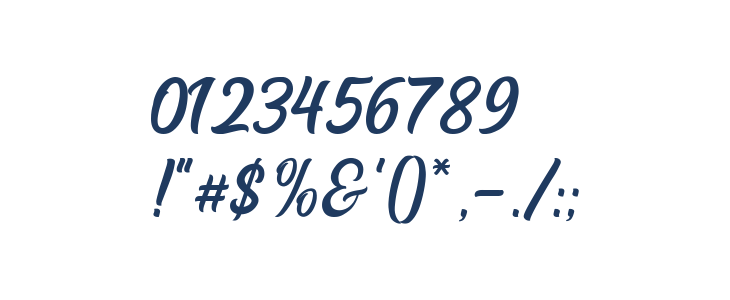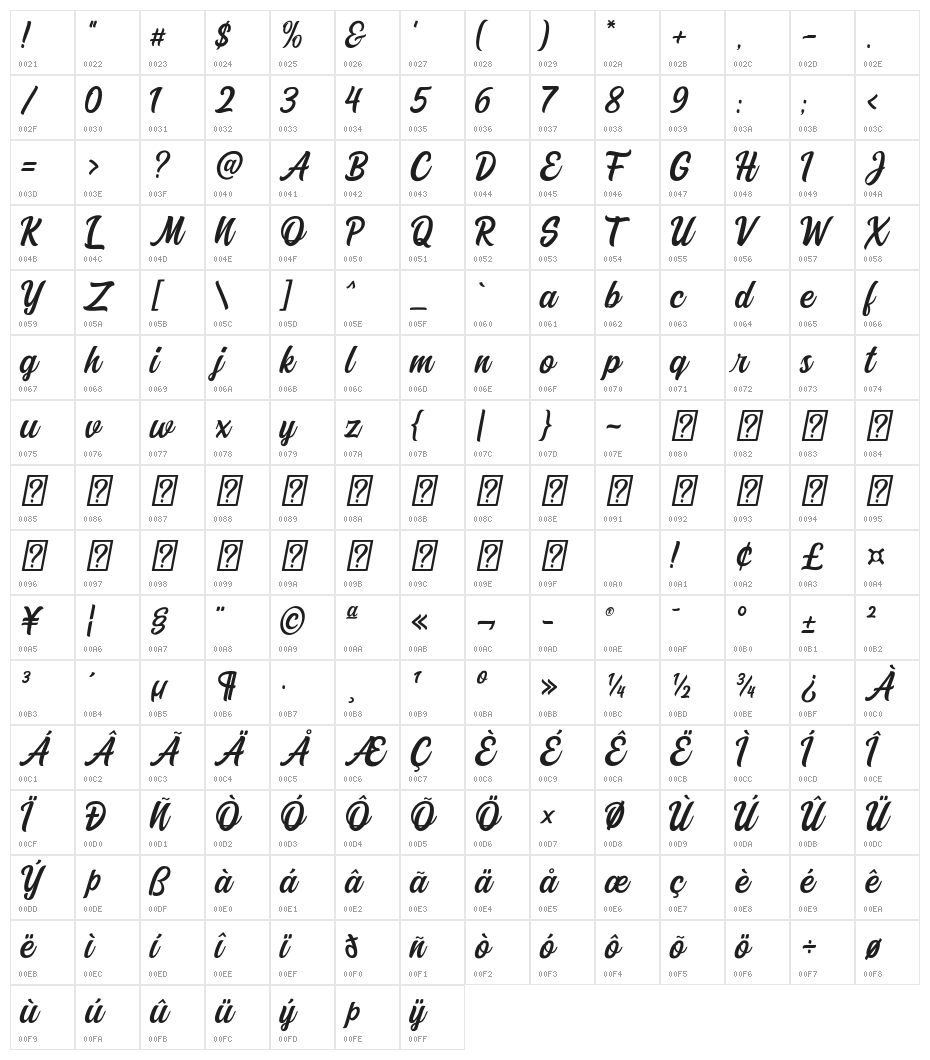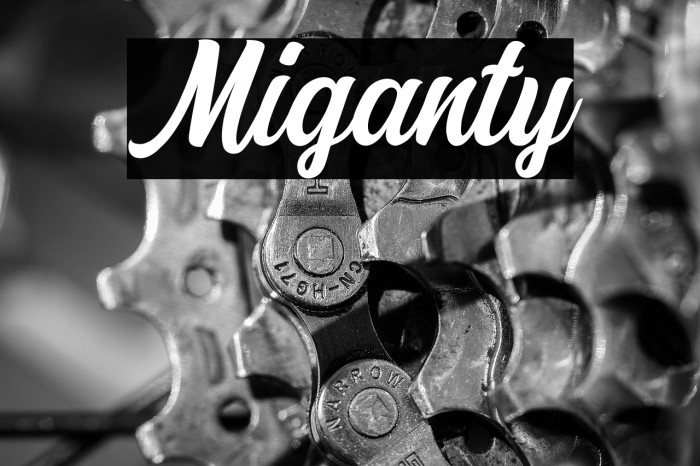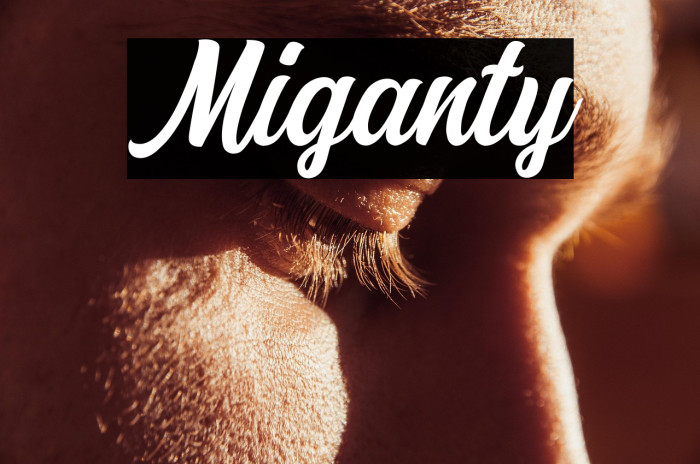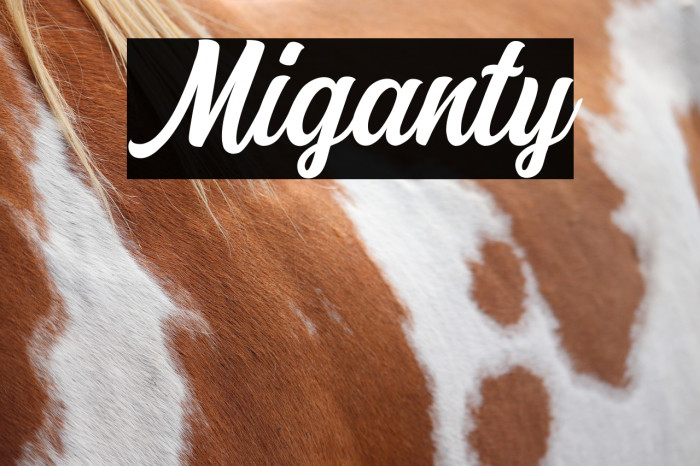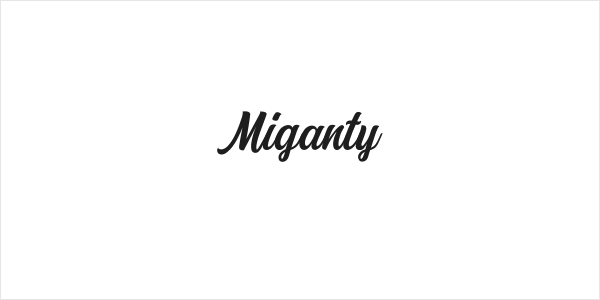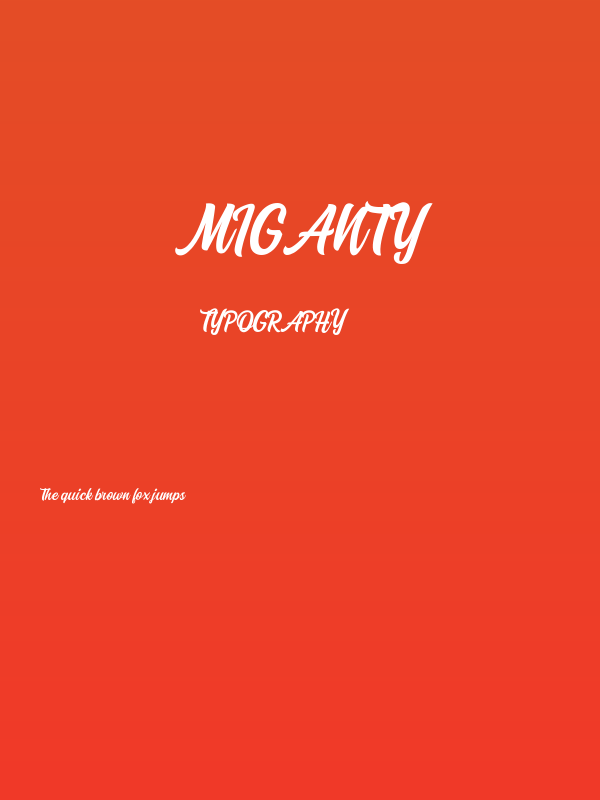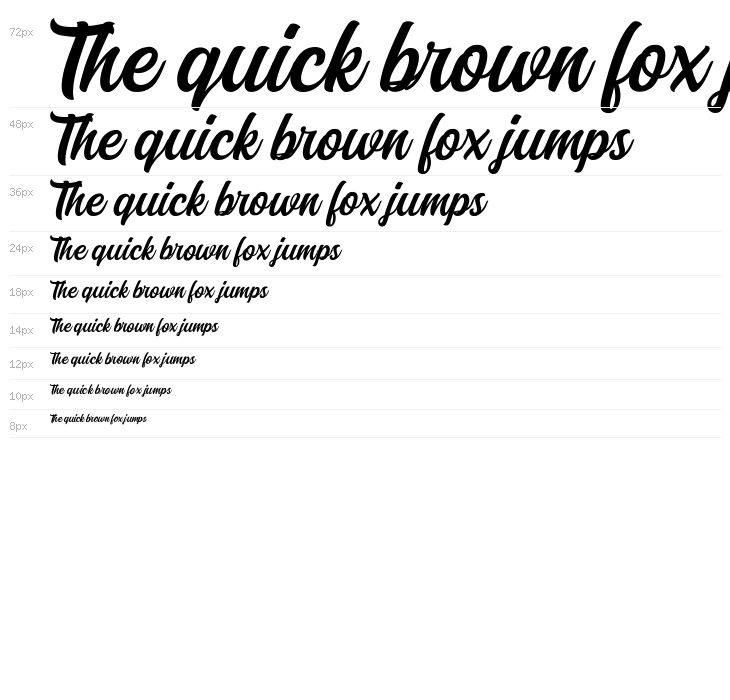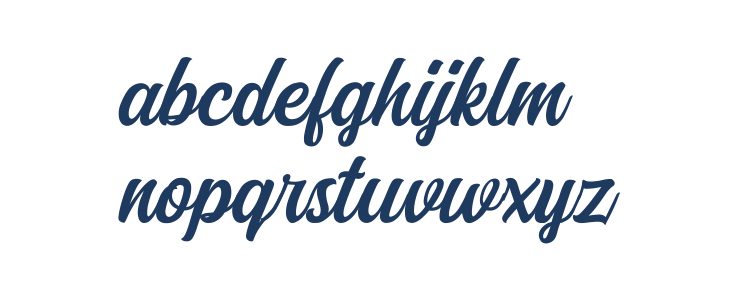
Miganty Font
Miganty Description
This font exhibits a bold and flowing script style, characterized by its elegant and cursive letterforms. The uppercase letters are slightly slanted, with smooth curves and a consistent stroke width that gives a sense of fluidity and motion. The lowercase letters maintain the same cursive style, with some letters featuring distinctive loops and swashes that enhance the font's decorative appeal. The numerals are designed to match the overall script style, maintaining the same boldness and fluidity. Special characters are also included, seamlessly integrating with the rest of the font. This font is ideal for adding a touch of elegance and sophistication to any design.
Use CaseLogos, Invitations, Headlines
Proposed ProjectsIdeal for wedding invitations, branding, and elegant signage.